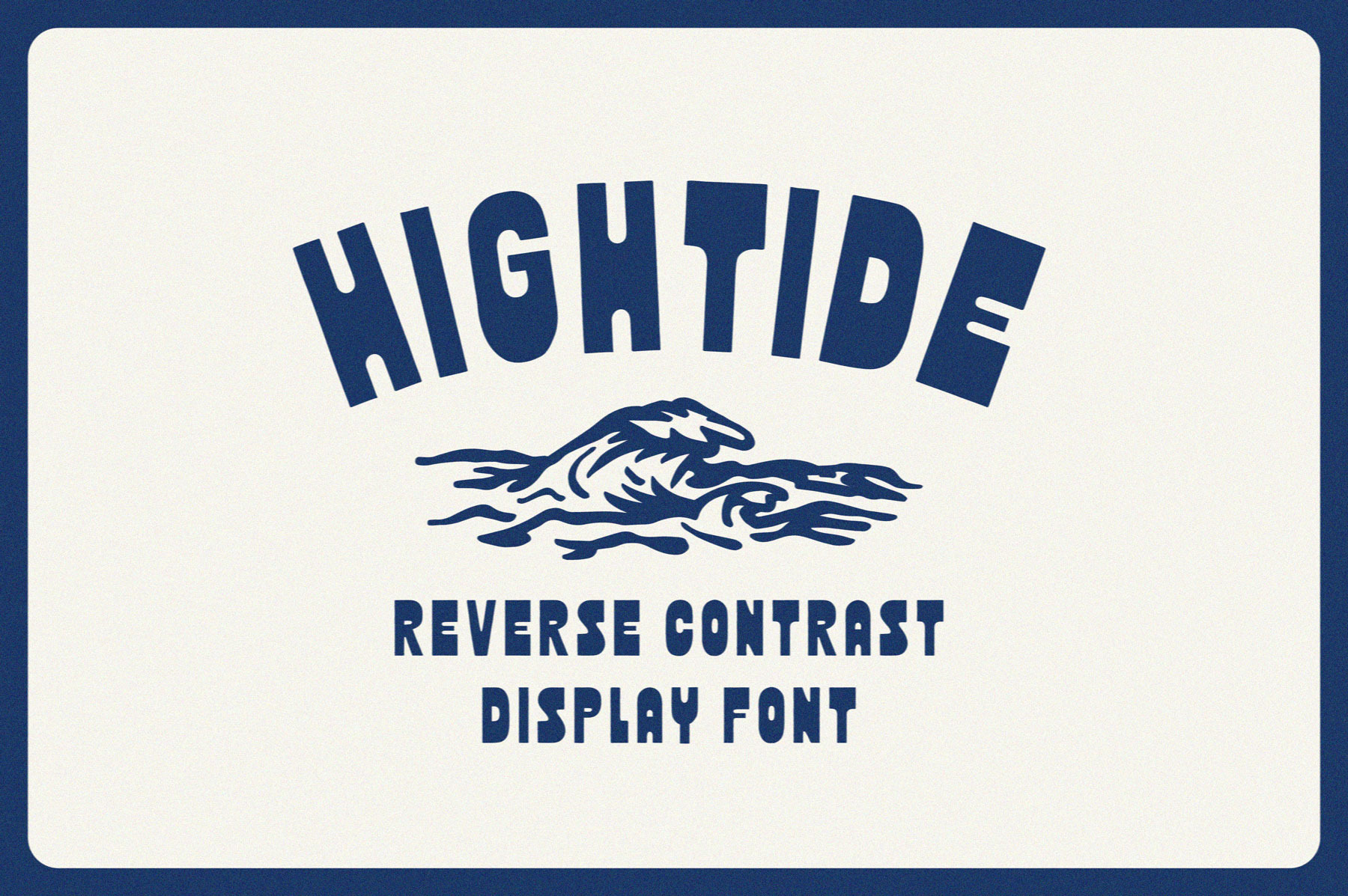
Hightide | Bold & Funky Display Font
Hightide is bold and funky reverse contrast display font. Hightide is bold and edgy with high contrast letterforms, drawing eyes to it in many applications. Whether you're crafting a memorable logotype or creating impactful headlines for posters or merchandise designs, this font offers endless possibilities. Stand out from the crowd with Hightide!